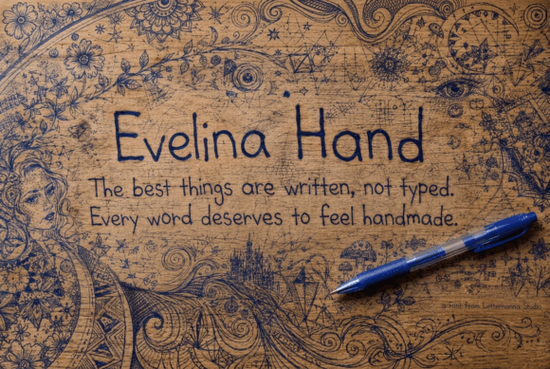
If you have been searching for a way to bring genuine warmth to your digital creations, Evelina Hand Font offers exactly that feel. This typeface is built to mimic the soft precision of a fine-point gel pen, creating letterforms that sit comfortably upright on a relaxed baseline. Unlike rigid typewritten styles or overly messy scrawls, it sits right in the middle professional yet approachable. For those who want their blog layouts or product mockups to feel human-made rather than factory-generated, this download provides the perfect balance of structure and soul.
What kind of projects suit this handwriting?
The versatility of a font like this depends heavily on its stroke weight and anatomy. Because Evelina Hand features crisp, uniform lines, it reads very clearly even at smaller sizes. This makes it an excellent candidate for children’s book body text where readability is paramount but a whimsical tone is still desired. Small business owners often use these kinds of assets for custom greeting card messages, artisanal food packaging, or cozy lifestyle blog layouts. When you need a project to feel entirely authentic and personal, using a typeface designed with a home-cooked personality helps bridge the gap between designer intent and user experience.
How does it compare to other scripts on the platform?
When selecting a hand-drawn typeface, alignment is everything. Many fonts claim to look handwritten but often feature inconsistent baselines or varying stroke widths that cause eye strain during long reading sessions. Evelina Hand avoids this by maintaining consistent thickness throughout the alphabet. This reliability is crucial when designing print-on-demand products like mugs, t-shirts, or journals where spacing errors are magnified on the final medium. The friendly letterforms balance neat architectural clarity with comfort, ensuring your statements feel personal rather than chaotic. You want your audience to connect with the message, not struggle to decipher the letters.
Consistency also affects how easily you can pair this font with others. A display font like this often pairs well with simple sans-serifs for headers or captions. However, mixing it with overly decorative scripts can create visual noise. It is best to let this character take center stage for key phrases or quotes. If you need a standard body font for paragraphs, keep it neutral so the handcrafted charm remains the focal point. This approach ensures professional approachability without losing the artistic touch that defines the genre.